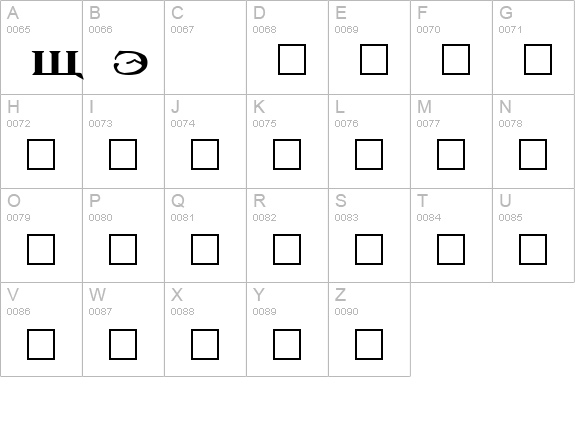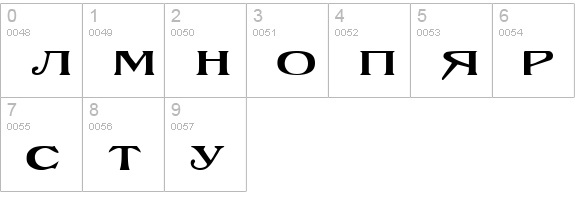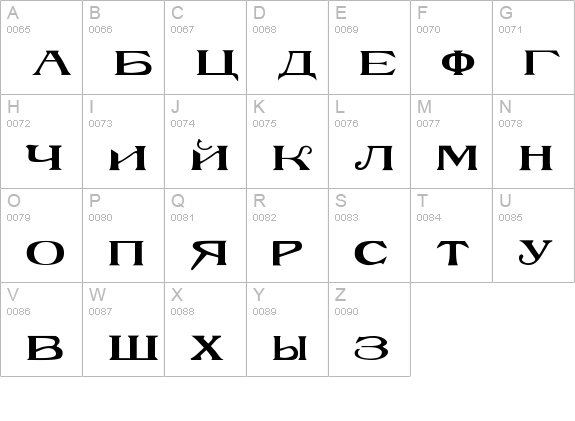
DemoRusskijModern Font Details
DemoRusskijModern font is a stunning display typeface that combines traditional Russian aesthetics with a modern twist. Its elegant and stylish design makes it perfect for a wide range of creative projects, from branding to editorial design. This font features unique letterforms that exude sophistication and charm, making it a standout choice for any design endeavor. The best part about DemoRusskijModern font is that it is completely free to download at FontsMarket.com. This means that you can easily access this beautiful typeface and use it in your projects without any cost involved. Don't miss out on the opportunity to enhance your designs with the timeless elegance of DemoRusskijModern font - download it today and let your creativity shine!